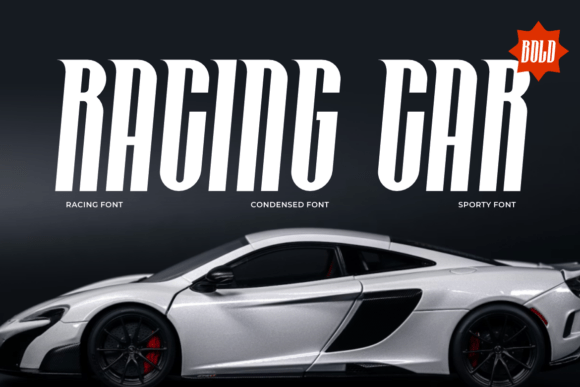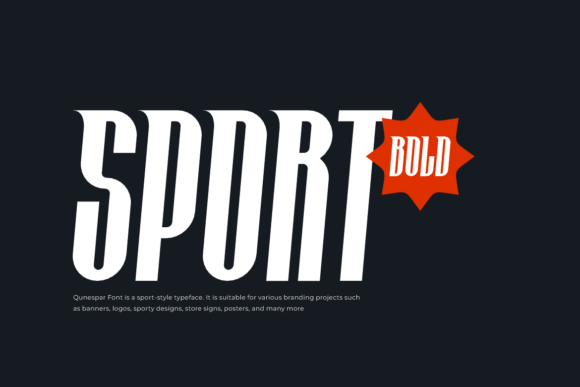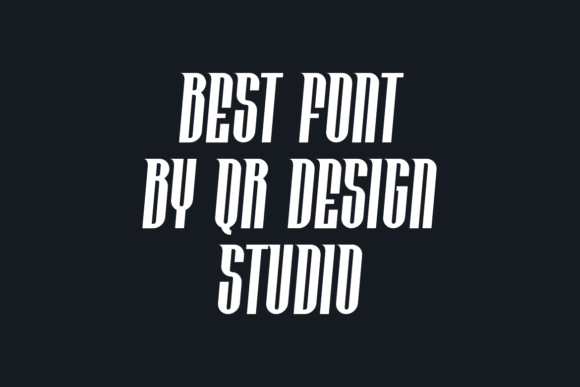
Introduction to Qunespar Font
Imagine you’re working on a high-stakes campaign for a professional sports team, and you need a font that screams speed and power. You’re scrolling through design resources, searching for that perfect combination of style and functionality, when suddenly, you stumble upon it – the Qunespar Font. This massive and high-energy display font is designed to make a statement, and its impact is undeniable.
As a designer, you know the value of a well-chosen font in bringing a creative project to life. The Qunespar Font is a game-changer, offering a unique blend of high-contrast, sharp terminals and angled spurs that create an immediate sense of power and motion. Whether you’re working on a free download or a high-impact marketing banner, this font is sure to leave a lasting impression.
Key Features of Qunespar Font
- High-quality font designed for creative projects, ideal for graphic designers and artists.
- Unique, modern design with a transparent background, allowing for seamless integration with any background image or color.
- Perfect for use in digital designs, such as logos, icons, and typography-based art, with a resolution of 300 DPI.
Honest Review: Qunespar Font
I recently stumbled upon the Qunespar Font while searching for a design resource to elevate my creative project. As a designer, I’m always on the lookout for high-quality fonts that can help me create visually stunning work.
One of the things that caught my attention about the Qunespar Font is its sleek and modern design. The font is available for free download, which is a major plus for designers working on tight budgets. I’ve used it in a few projects, and it’s been a game-changer.
- Sleek and modern design
- Perfect for creative projects
- Limited character set (may not be suitable for extended text)
- No bold or italic variations available
Overall, I’m impressed with the Qunespar Font. It’s a great addition to any designer’s toolkit, and I would highly recommend it for any creative project. With its sleek design and transparent background, it’s perfect for modern designs that require a touch of sophistication.
The Qunespar Font is a high-quality, versatile design resource ideal for creative projects. Its unique style and transparent background make it a perfect addition to any visual project.
Tips for Getting the Most Out of Qunespar Font
Use the Qunespar Font in combination with other design elements to create a cohesive and visually appealing design. Experiment with different font sizes, colors, and styles to achieve the desired effect.
The Qunespar Font is ideal for a variety of creative projects, including logos, graphics, presentations, and documents. Its versatility and high-quality design make it a perfect choice for designers and non-designers alike.